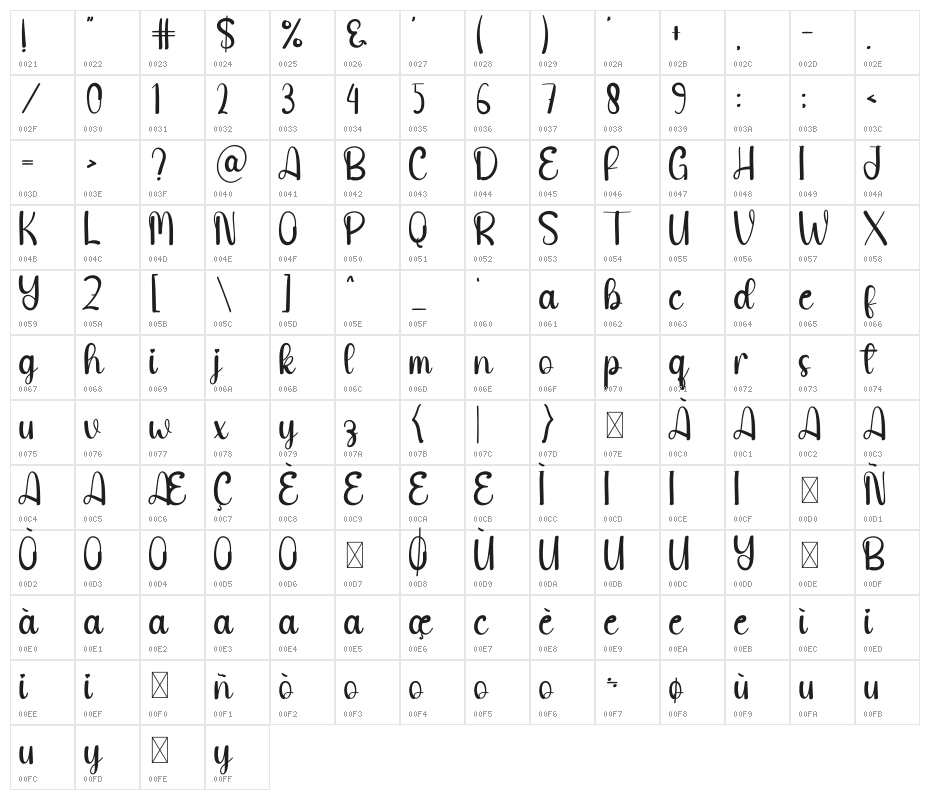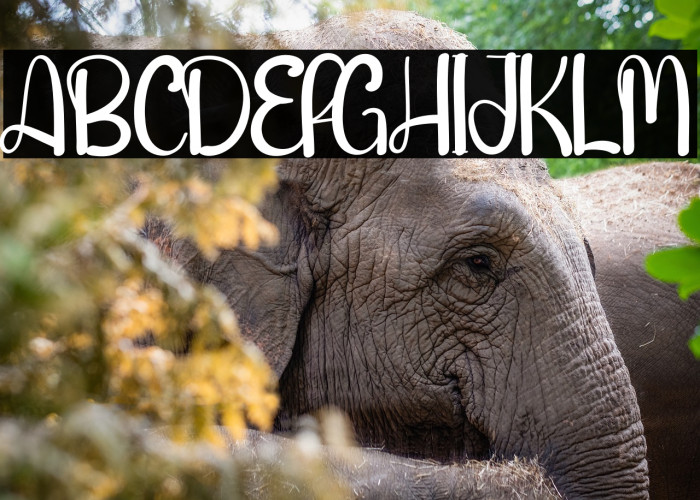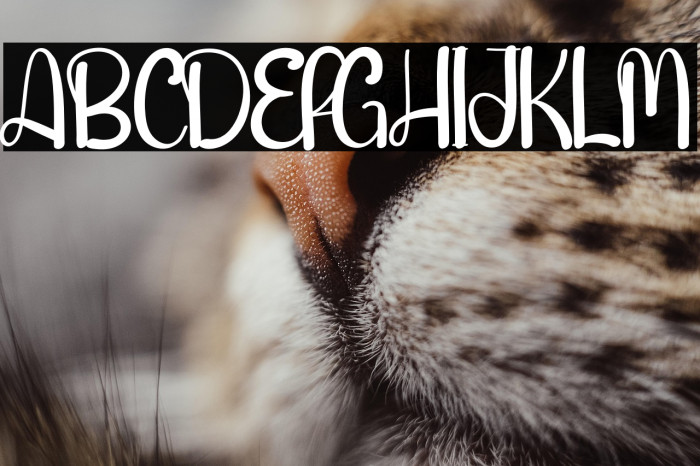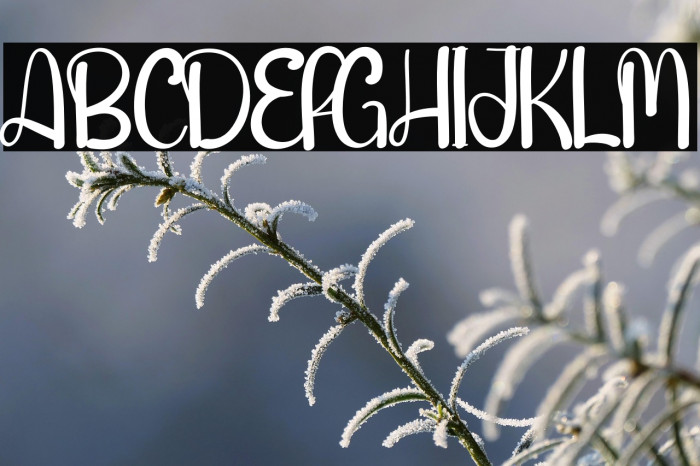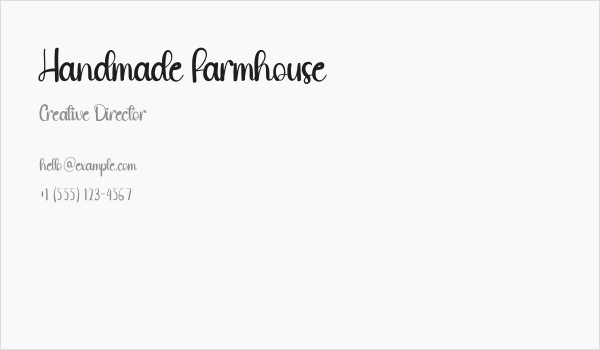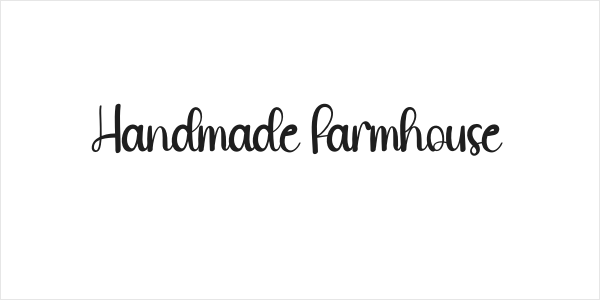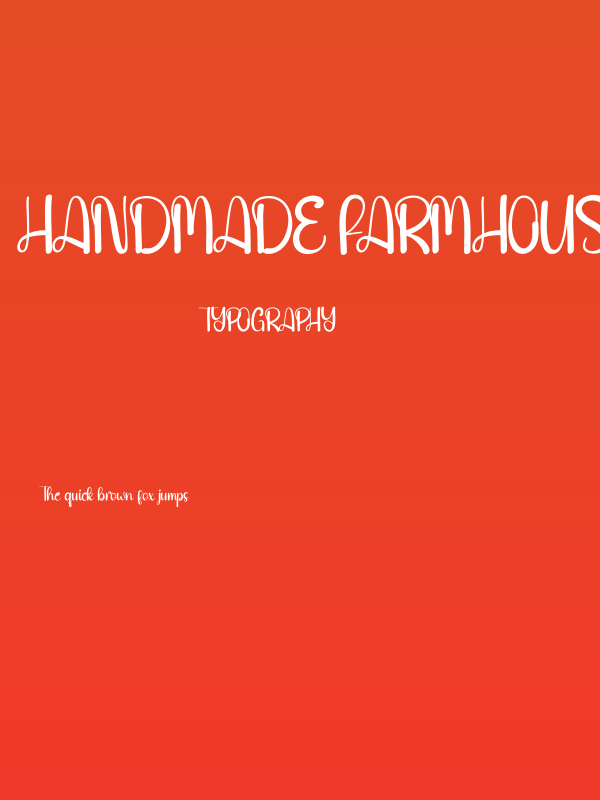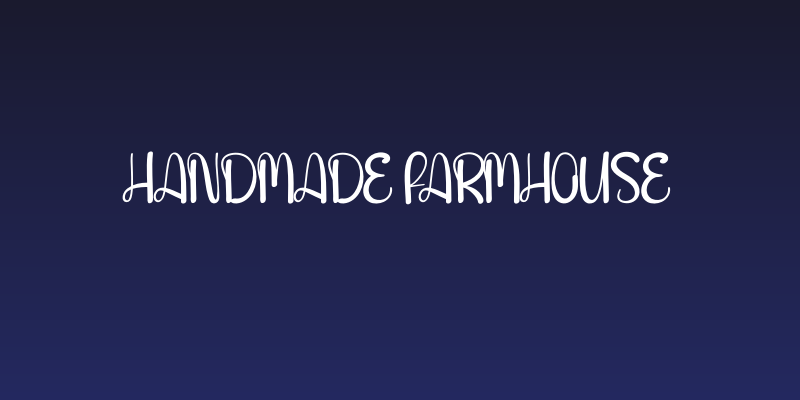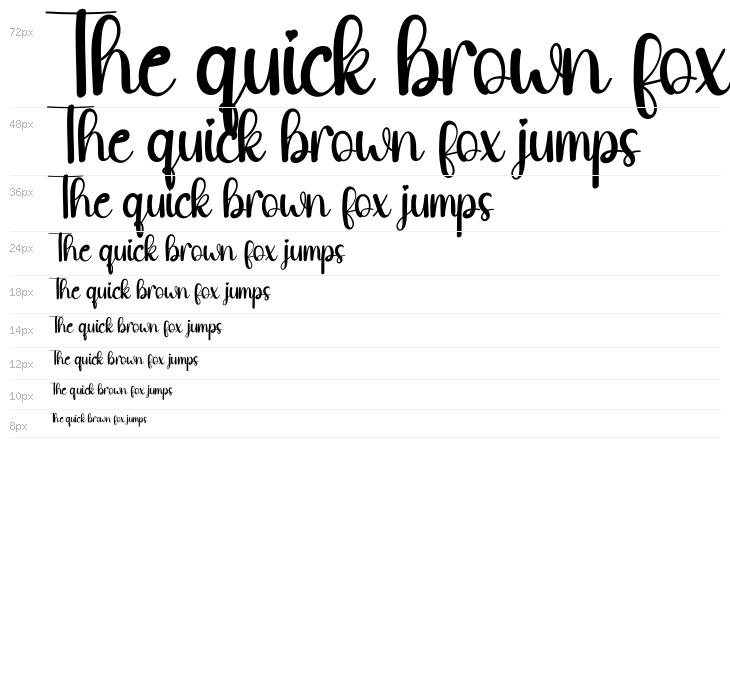
Handmade Farmhouse Font
Handmade Farmhouse Description
This font exudes a charming, handcrafted aesthetic with a playful and rustic vibe. The letters are characterized by their flowing, cursive style, which gives them a whimsical and approachable feel. The uppercase letters are bold and slightly elongated, while the lowercase letters maintain a consistent flow with some unique loops and curves. The numbers are clear and easy to read, maintaining the same playful style. Special characters are creatively designed, adding to the font's overall personality. This font is perfect for projects that require a personal touch, such as invitations, greeting cards, or farmhouse-themed decor.
Use CaseLogos, Headlines, Decorative text
Proposed ProjectsIdeal for invitations, greeting cards, farmhouse decor, and DIY projects.